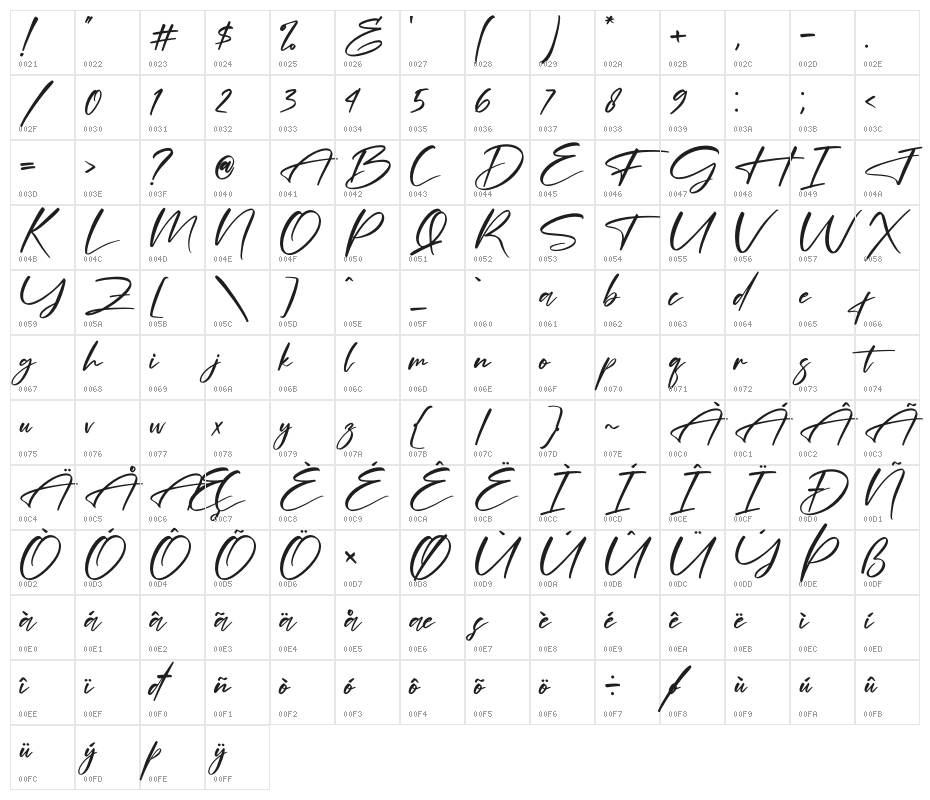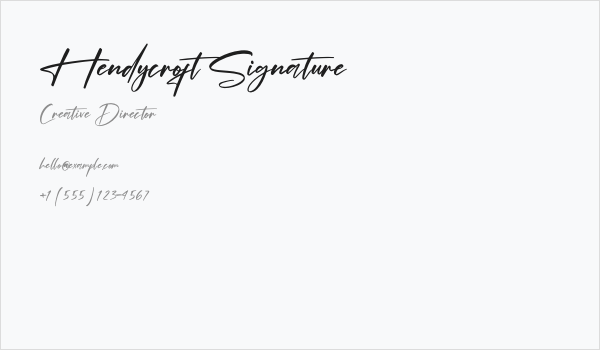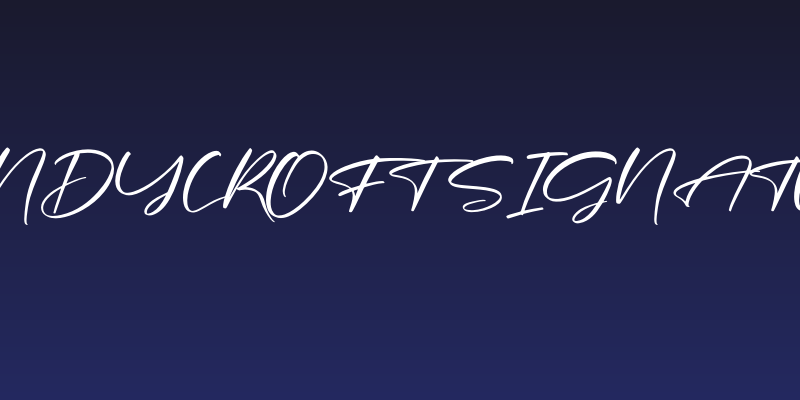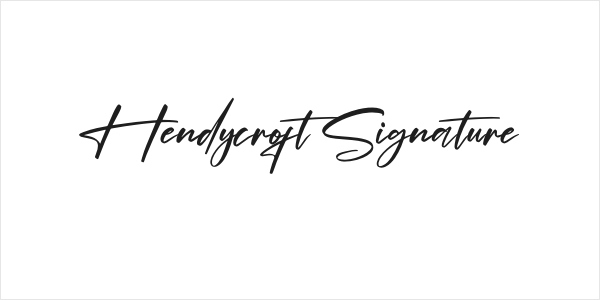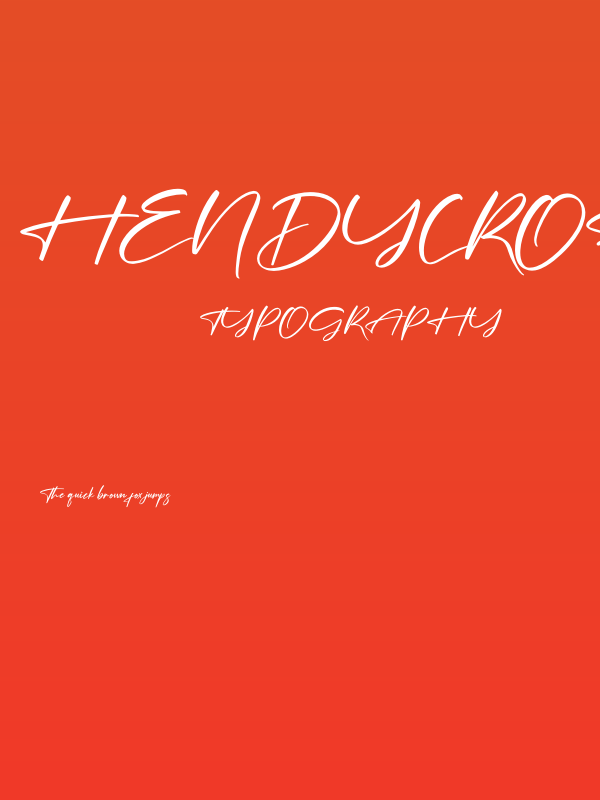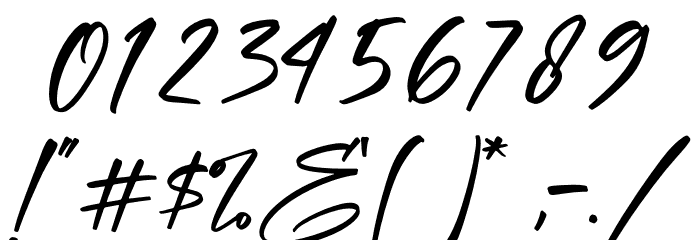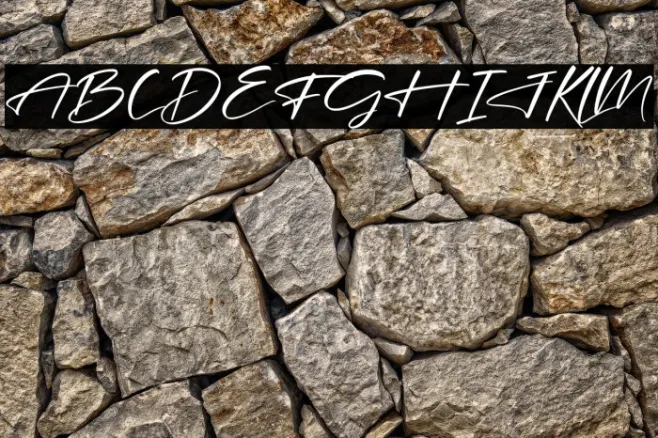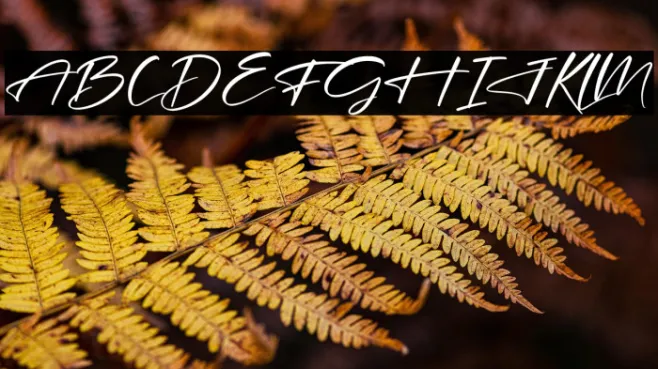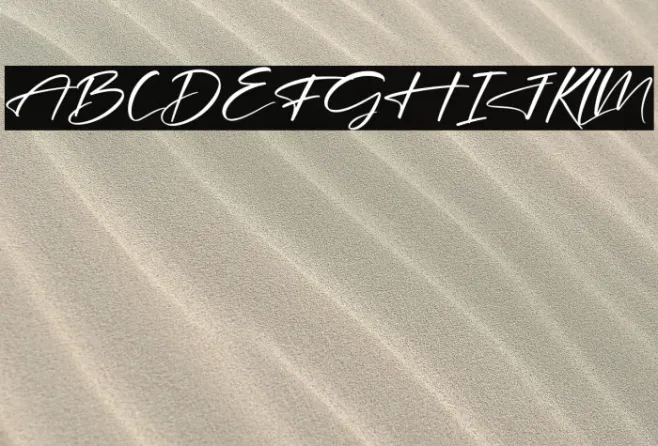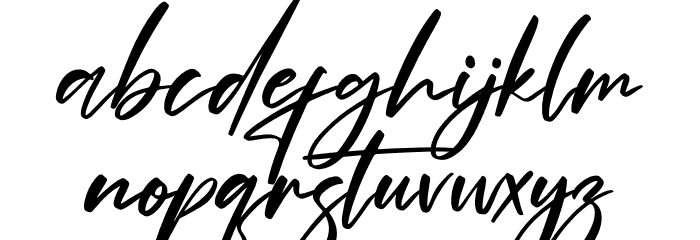
Hendycroft Signature Font
Hendycroft Signature Description
This font exudes a modern and elegant script style, characterized by its fluid and dynamic strokes. The uppercase letters are tall and slender, with a slight slant that adds a sense of movement and grace. The lowercase letters are more compact, with intricate loops and connections that create a cohesive and flowing appearance. The numbers and special characters maintain the same stylistic flair, ensuring consistency throughout. This font is perfect for projects that require a personal touch, such as invitations, branding, and social media graphics. Its handwritten quality gives it a warm and approachable feel, making it suitable for a variety of creative applications.